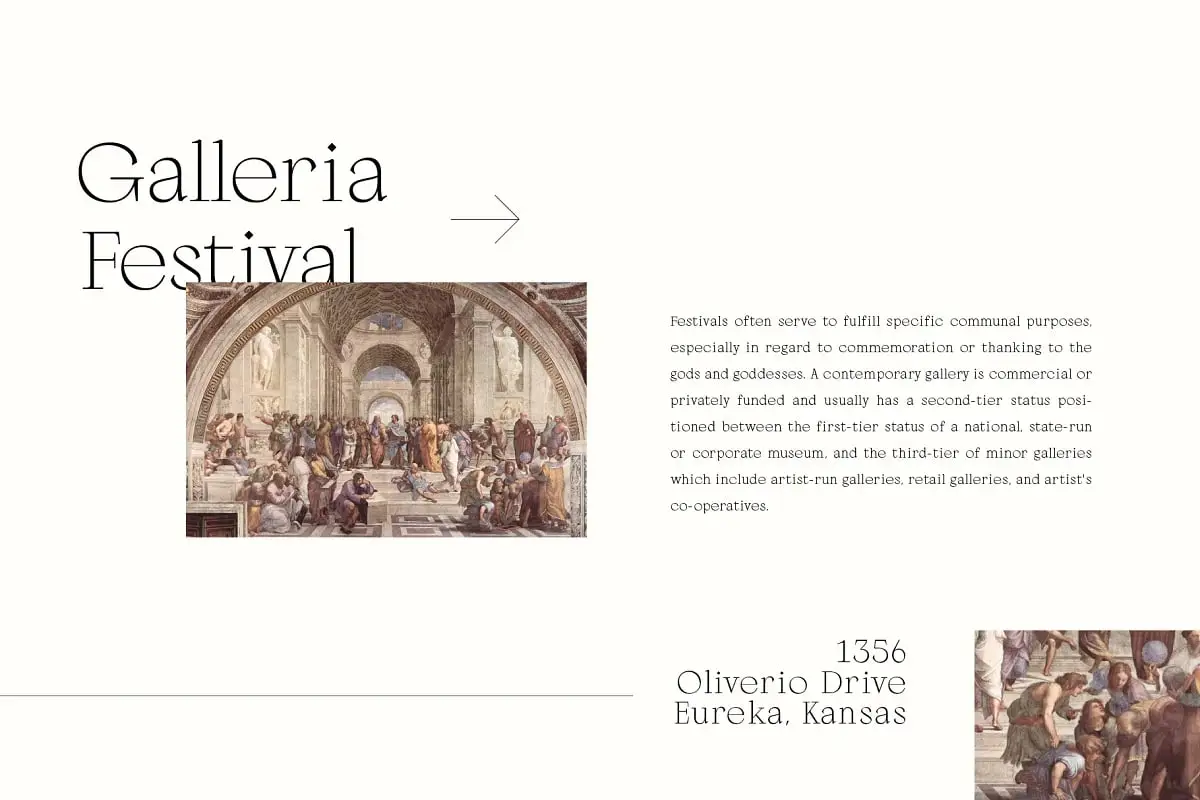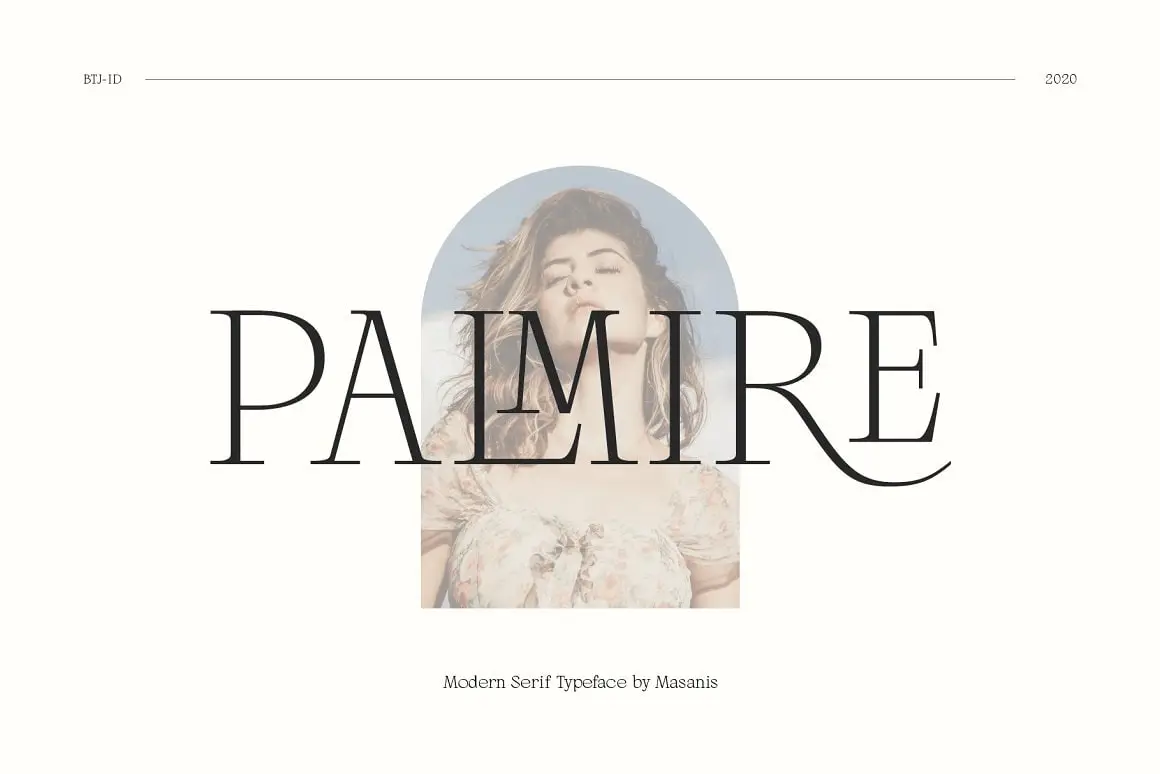
The Masanis Palmire Modern Serif Typeface is a sophisticated font designed to elevate your design projects with its elegant and contemporary style. This typeface features a unique blend of classic serif characteristics and modern aesthetics, making it perfect for various applications.
- Stylish serif design with a modern twist
- Uppercase and lowercase letters, numbers, and symbols
- Weights: Regular, Bold
This typeface is ideal for branding, logo design, web content, print materials, and user interfaces, allowing you to create stunning visuals that stand out.